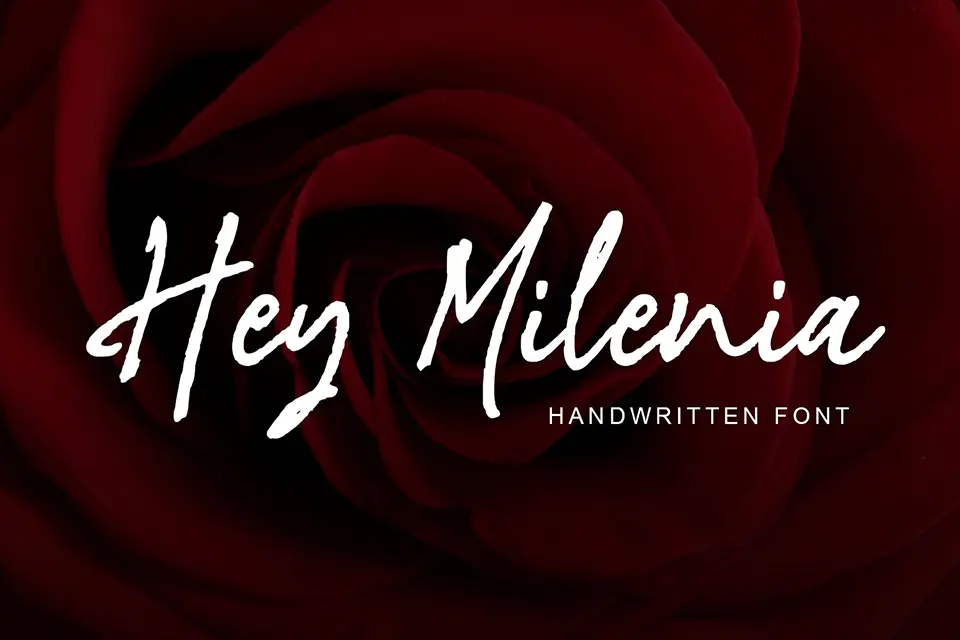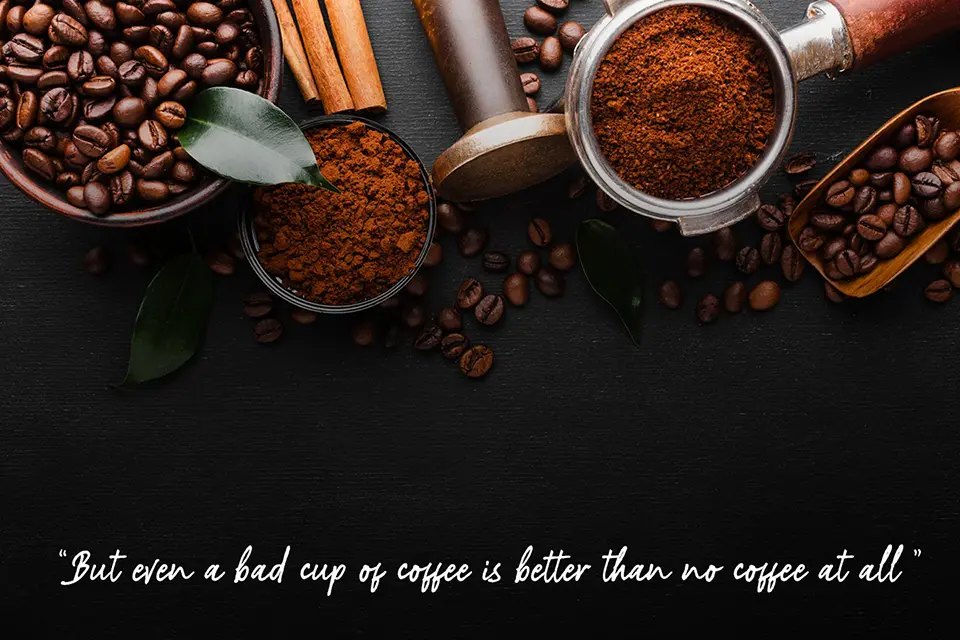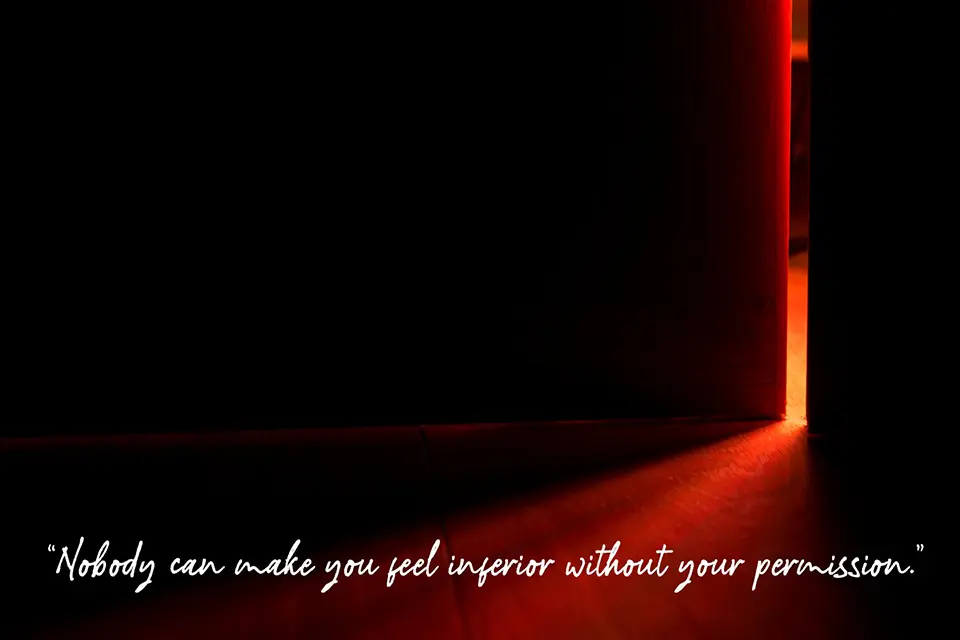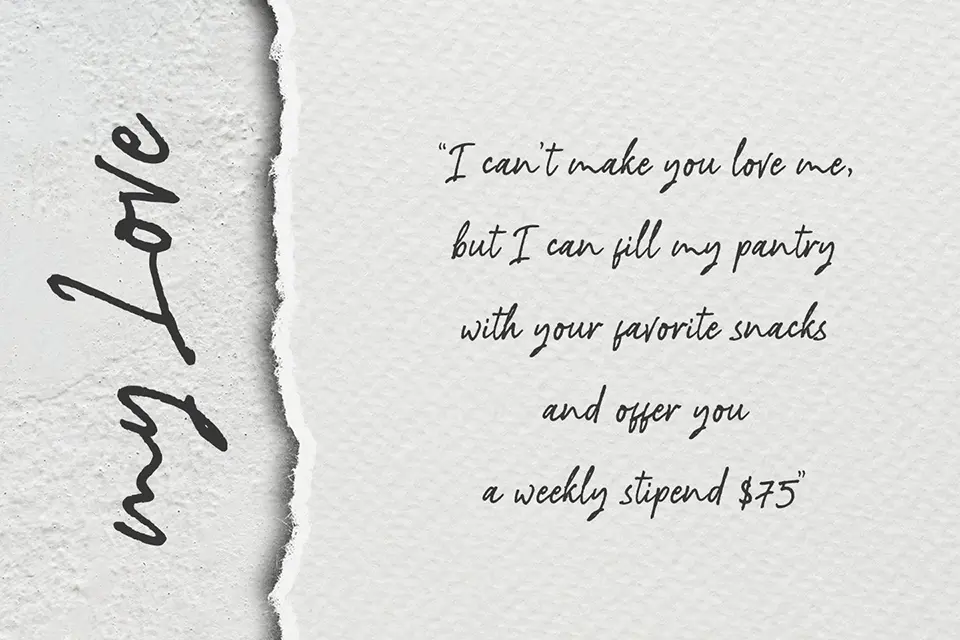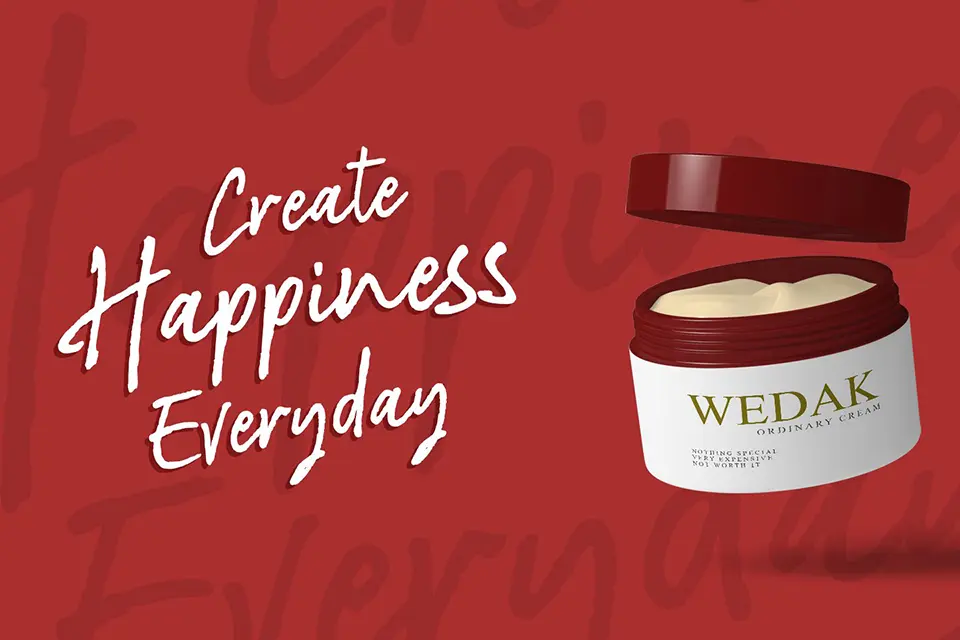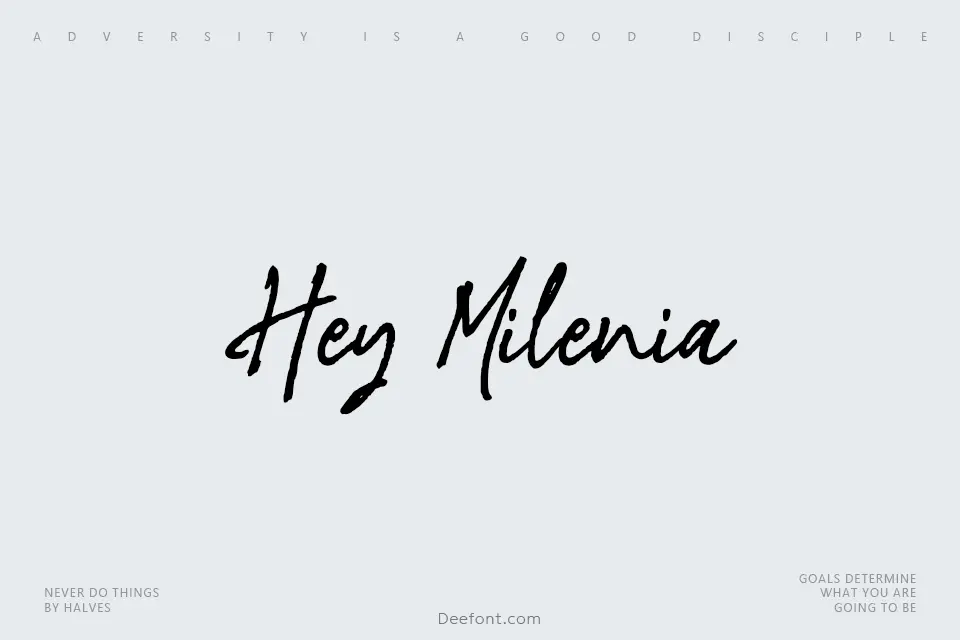
Hey Milenia Font
Hey Milenia Font is a dynamic handwritten typeface crafted with a premium pen, offering a natural, flowing script aesthetic. Designed by Abo Daniel Studio and Panggah Laksono, it features connected cursive letterforms with bold uppercase characters and elegant lowercase loops, creating a seamless, organic rhythm. The font includes numerals, symbols, and multilingual support, making it versatile for quotes, branding, posters, product packaging, and invitations. Its raw yet polished style balances artistic flair with readability, ideal for projects seeking a handcrafted, approachable tone.